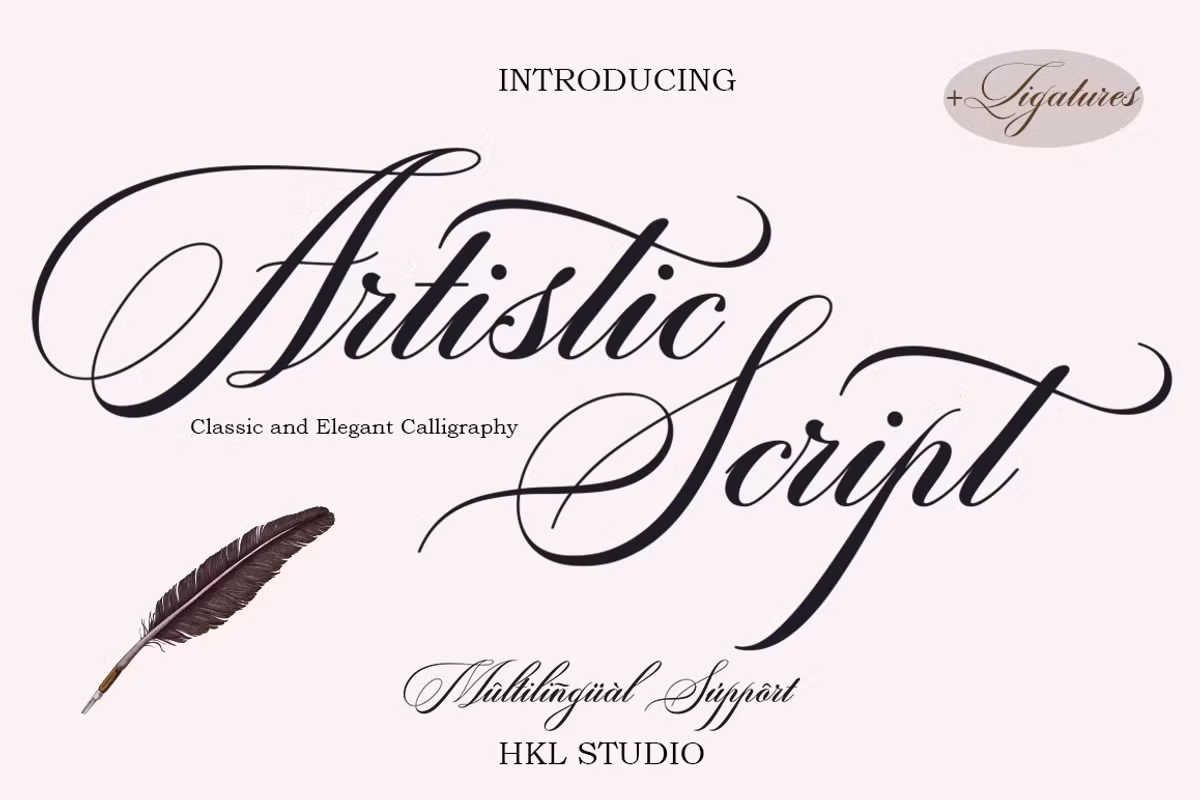
Artistic Script Font Free Download is an elegant, flowing script typeface that brings a personal, handwritten touch to your designs. With its smooth curves and artistic flair, this font is perfect for creating elegant invitations, logos, branding, greeting cards, and any project that requires a touch of sophistication and creativity.
Whether you're designing for weddings, fashion, or a creative business, Artistic Script adds a refined and stylish look to your typography. The fluid nature of the font ensures that it stands out and adds character, making it ideal for projects that need a more personal, artistic, or handcrafted feel.
The font includes uppercase and lowercase letters, numerals, punctuation, and multilingual support, providing versatility for both print and digital applications.